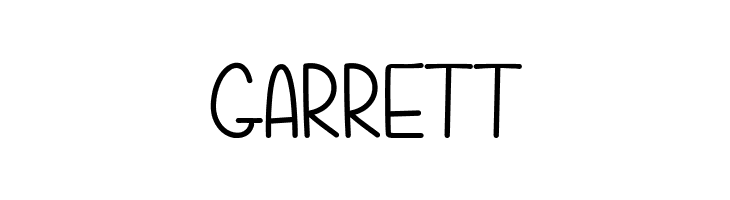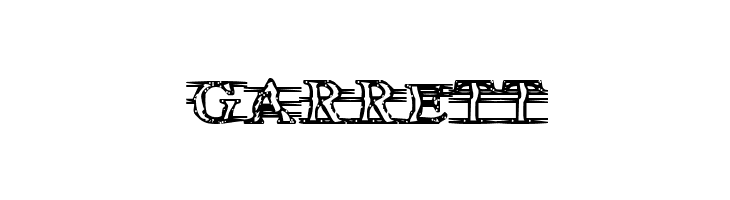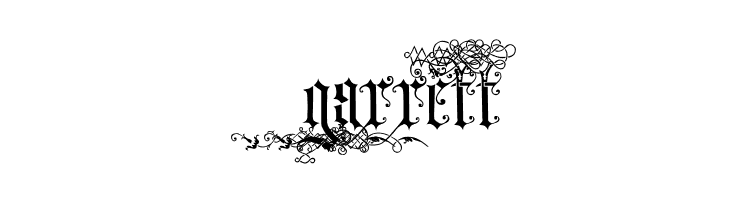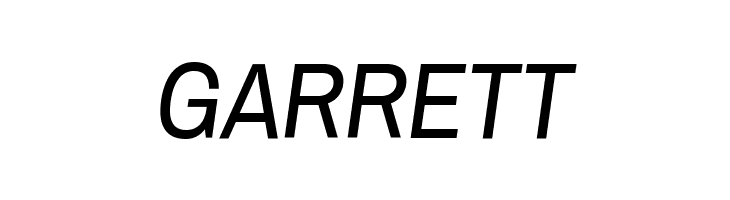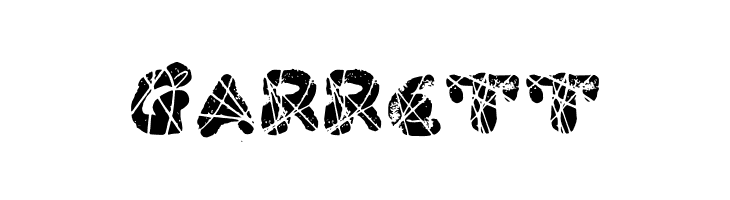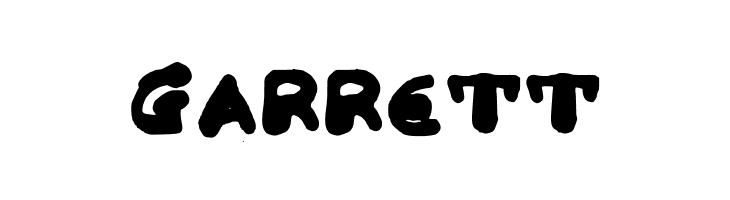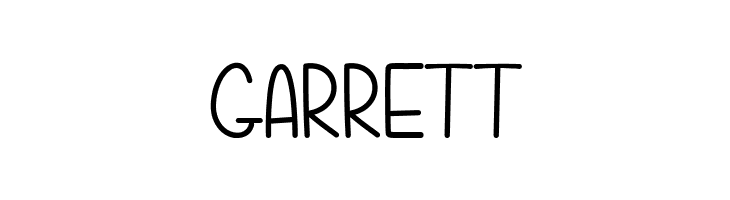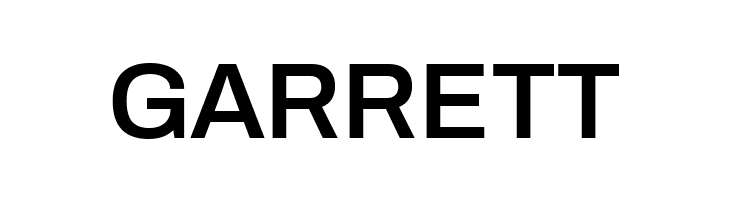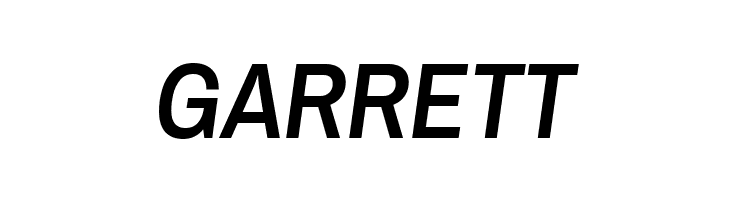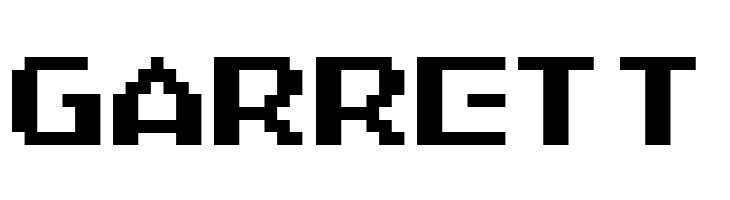
A modern, semi-bold, italic font with a slightly condensed style.
A clean, modern typeface with balanced spacing and consistent stroke thickness.
A modern, versatile typeface with clean lines and balanced proportions.
A modern, semi-bold, italic sans-serif font with clean lines and low contrast.
A modern, italic sans-serif font with clean lines and a professional appearance.
A modern, geometric sans-serif font with clean and readable letterforms.
A modern, bold, narrow sans-serif font with excellent readability.
A modern, narrow, bold italic font with a sleek and dynamic style.
A sleek, narrow, and italic font with a modern design.
A modern, narrow sans-serif typeface with clean lines and excellent legibility.
A pixelated, digital-style font with a retro, grid-like appearance.
A pixelated, retro-style font with a digital, arcade-inspired design.
A modern, geometric sans-serif font with a clean and minimalist design.
A modern, rounded font with clean lines and balanced spacing.
A clean, modern sans-serif font with uniform stroke width and geometric influence.
A clean, modern sans-serif typeface with uniform, well-proportioned characters.
A bold, angular font with a geometric and adventurous style.
A geometric, Art Deco-inspired font with elegant, elongated forms.
A sleek, art deco-inspired font with tall, narrow letterforms and subtle curves.
An ornate blackletter font with intricate flourishes and a gothic style.
A playful, hand-drawn font with bold, irregular strokes and a casual vibe.
A bold blackletter font with sharp, angular lines and a dramatic presence.
A bold, gothic-inspired font with sharp, angular edges and a strong presence.
A flowing, cursive script font with elegant, interconnected strokes.
An artistic and whimsical font with elongated, flowing letterforms.
A distressed, hand-drawn font with a rugged, textured appearance.
A playful, hand-drawn font with rounded, elongated characters.
A playful, rounded, handwritten-style font with smooth curves.
A playful, rounded handwritten font with smooth, consistent strokes.
A bold, brush script font with dynamic, hand-painted strokes.
A bold and dynamic brush script font with sweeping strokes.
A bold, modern sans-serif font with clean lines and uniform strokes.
A bold, modern sans-serif font with clean lines and strong legibility.